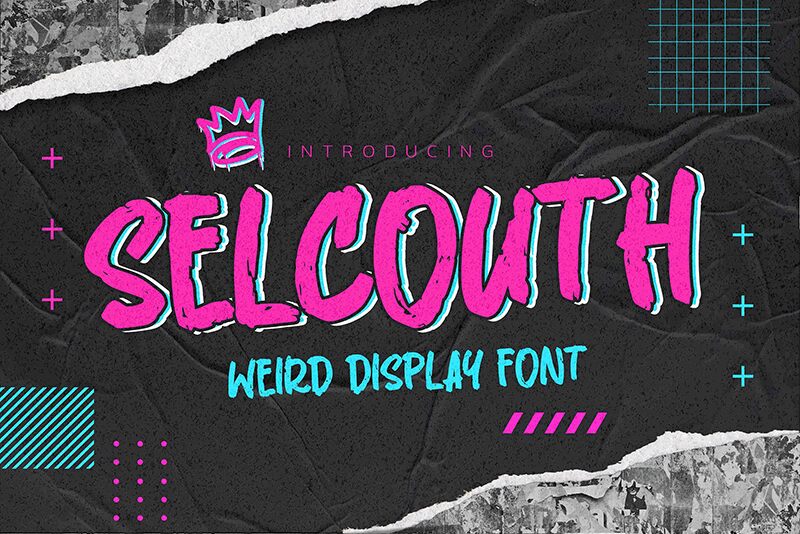
Selcouth
Dive into the world of Selcouth, a brush font that defies the ordinary, brought to life by the imaginative minds at Gassstype. With its semi-bold weight and an artistic flair reminiscent of a modern renaissance, Selcouth embodies a creative movement written with casual haste and dynamic vigor. This 'Weird Display Font' breaks free from convention, offering designers a versatile tool for projects that demand a modern yet unique touch.
Selcouth's authentic strokes lend themselves to designs that aim to stand out—whether it's an expressive logo, an eye-catching poster, or compelling branding elements. Its suitability extends across various mediums: packaging that tells a story, greeting cards that convey emotion, or websites craving personality. The font's natural appeal is enhanced by its perfect fit for photography overlays and scrapbooking endeavors; it enriches every canvas it graces.
Embrace Selcouth for your next project where the goal is not just to be seen but remembered—where each curve and line must resonate with raw originality and heartfelt craftsmanship.